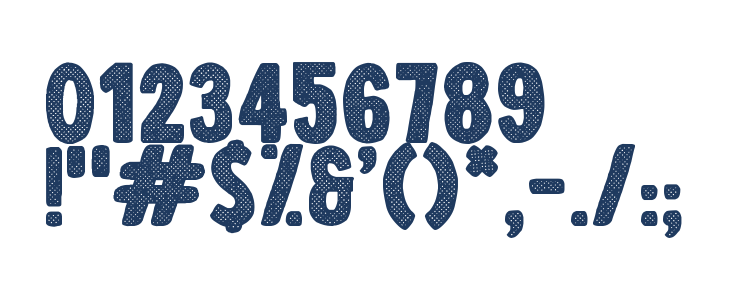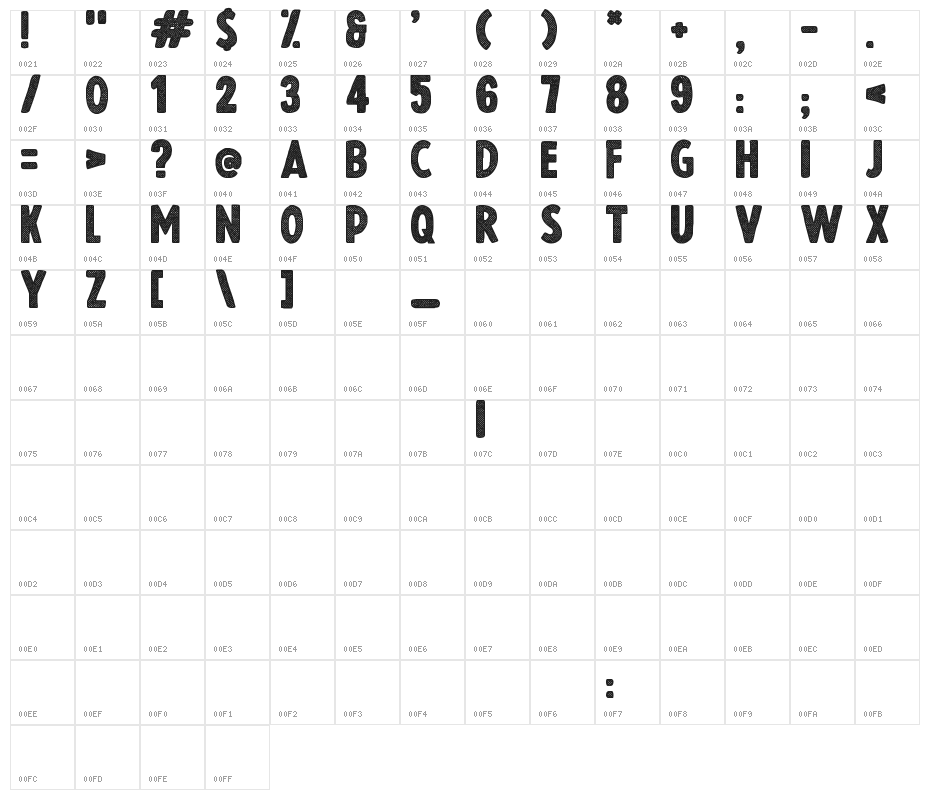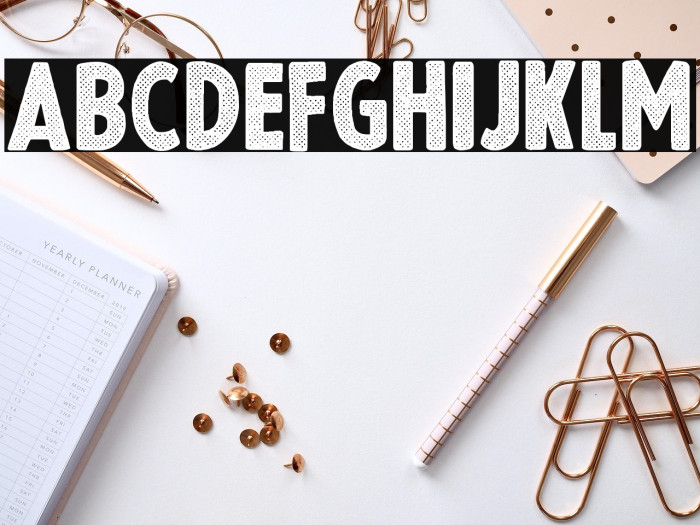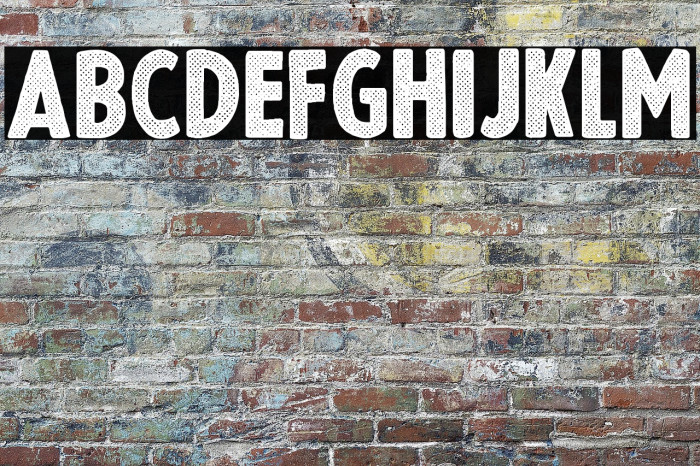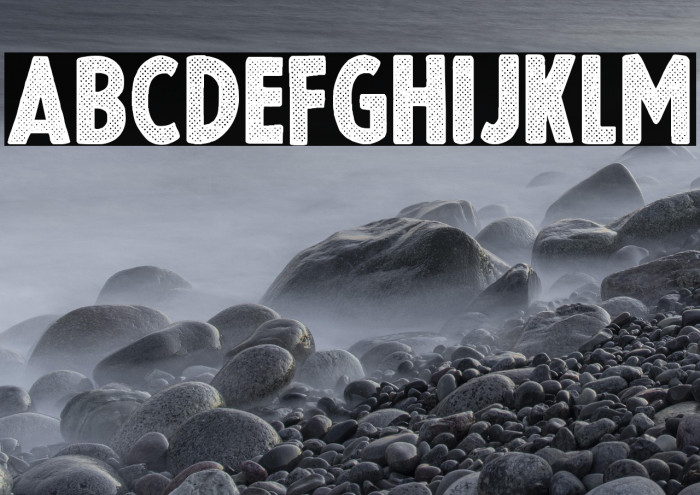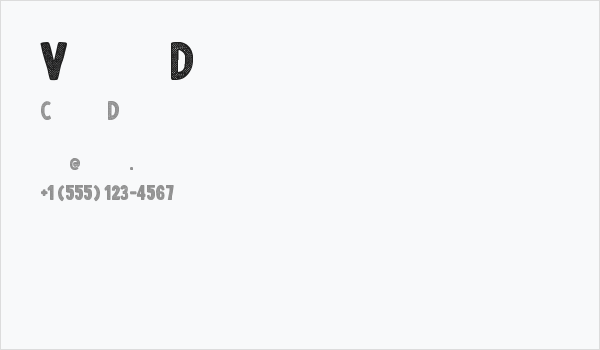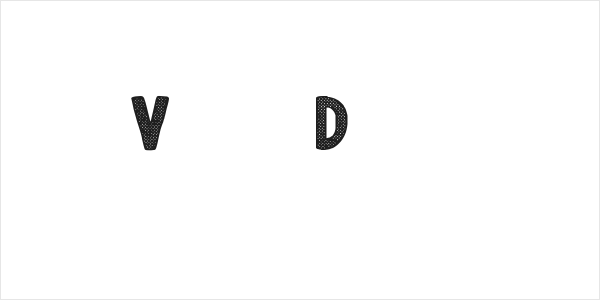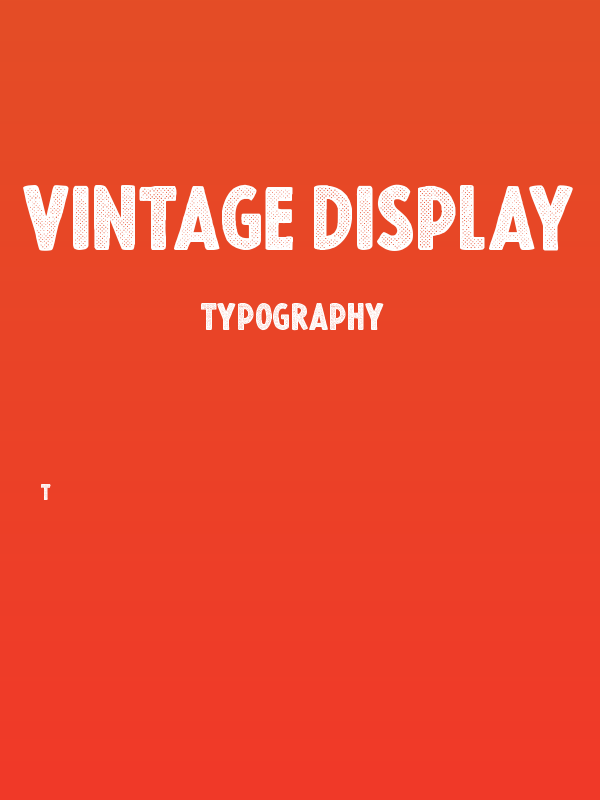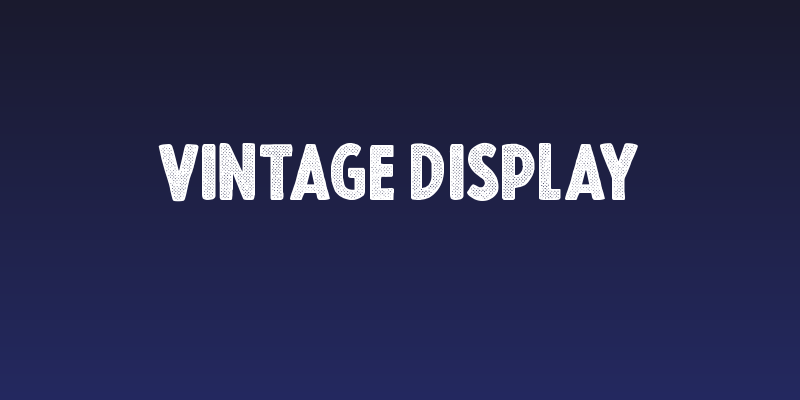
Vintage Display Font
Vintage Display Description
This font features a bold, vintage display style with a distinct dotted texture throughout each character. The uppercase letters are uniformly bold, with a playful yet structured appearance. The numbers and special characters maintain the same boldness and texture, ensuring consistency across all elements. The dotted pattern adds a unique visual interest, making it stand out in any design. The overall style is reminiscent of retro signage or vintage posters, offering a nostalgic feel while remaining clear and legible.
| Proposed Projects | Ideal for retro-themed posters, vintage branding, eye-catching headlines, and creative packaging designs. |